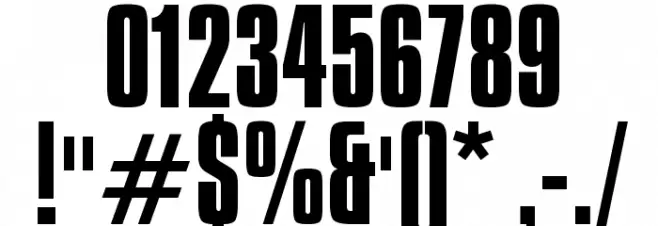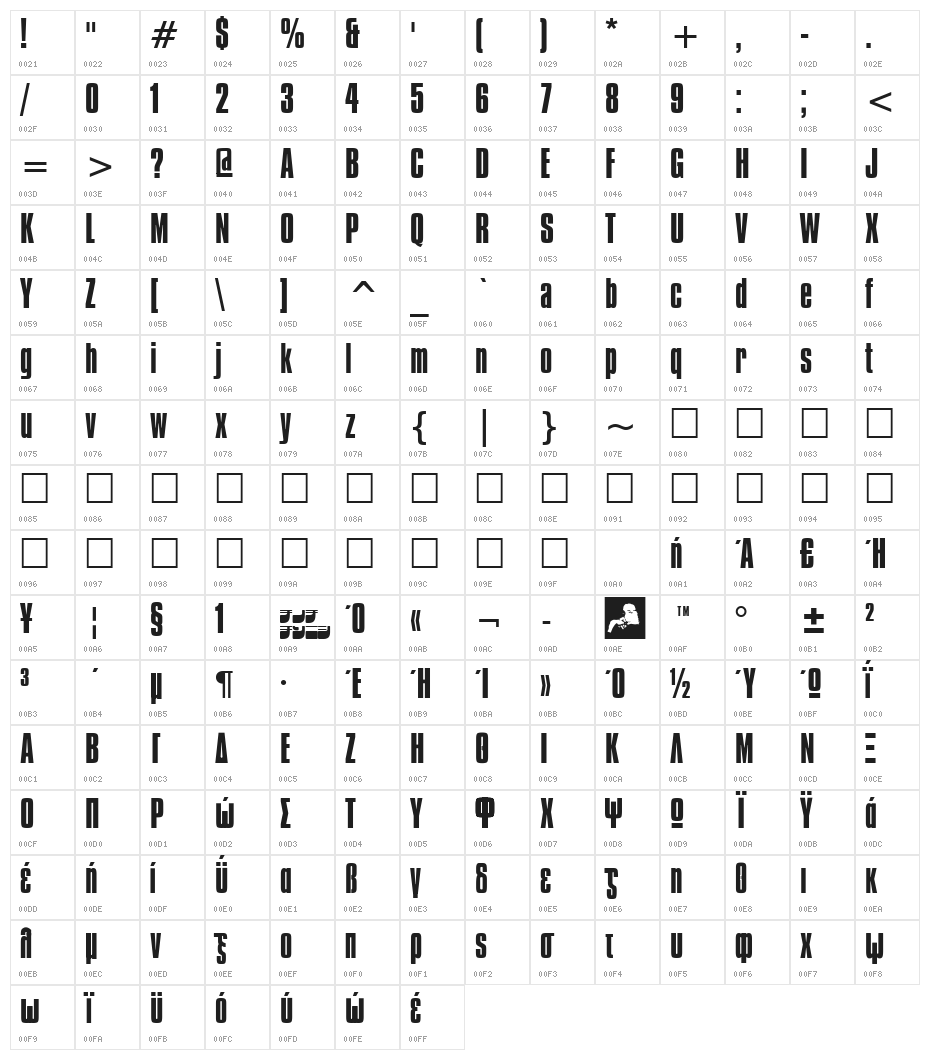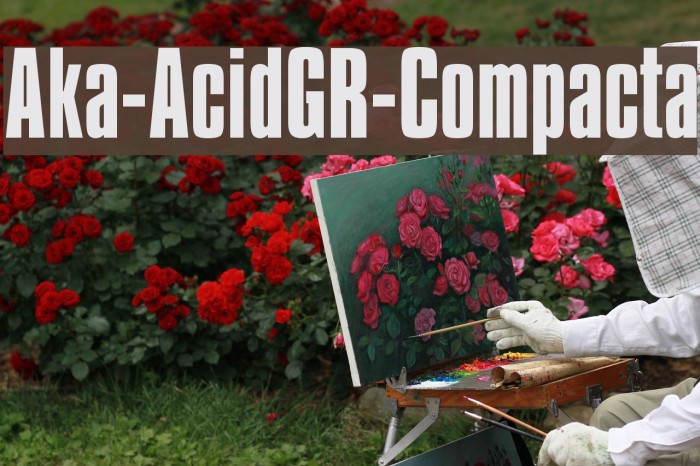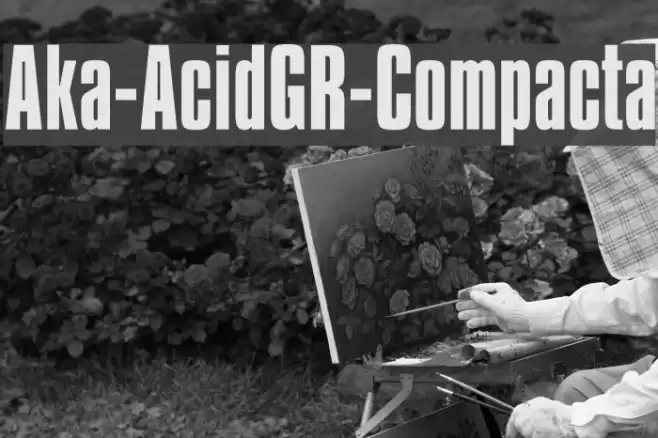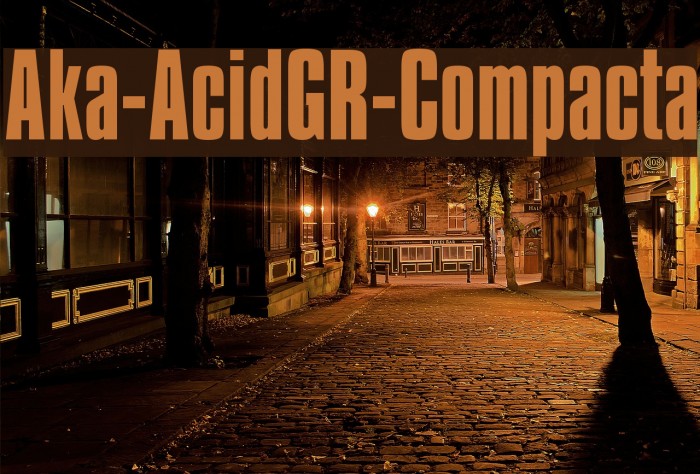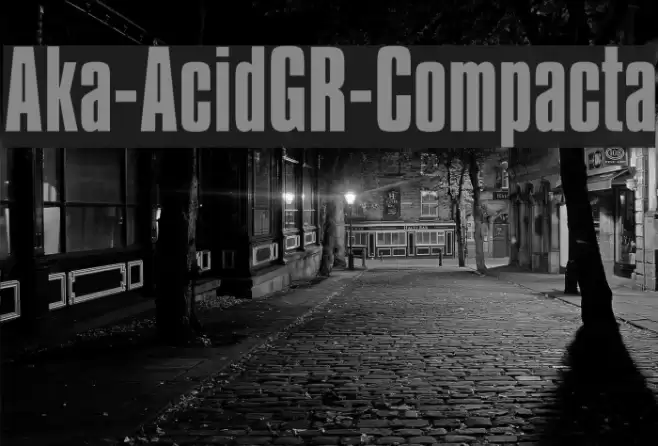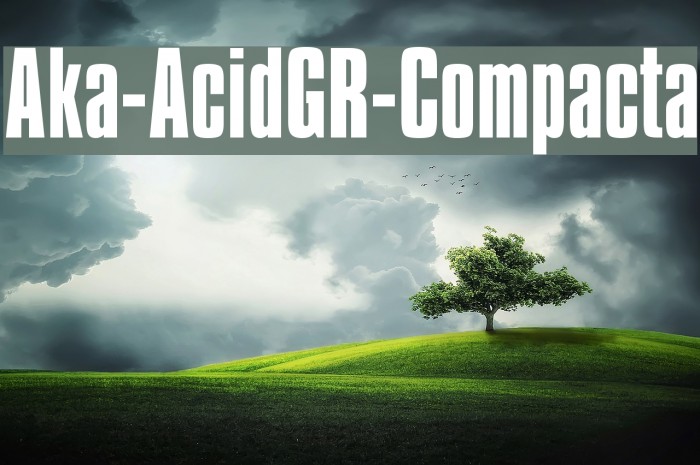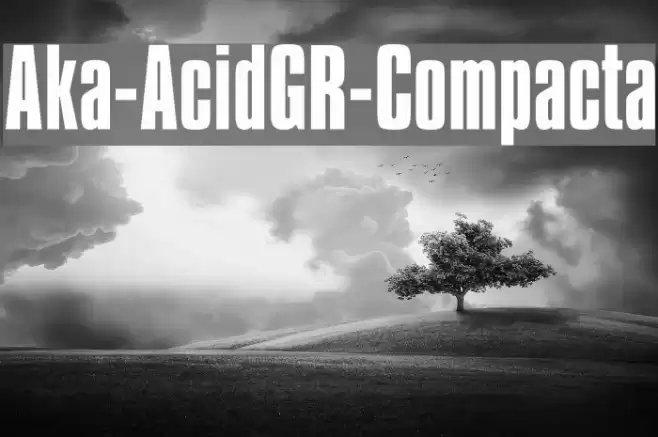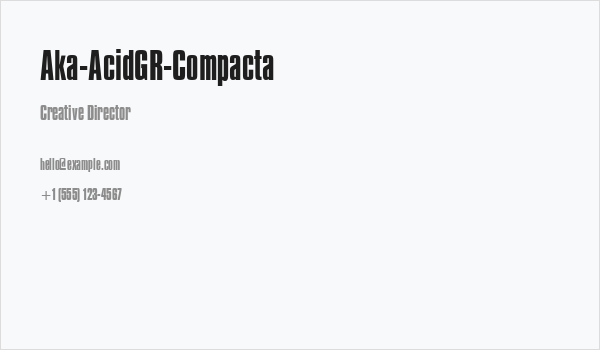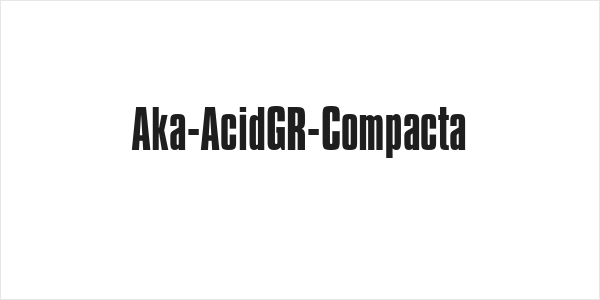
Aka-AcidGR-Compacta Font
Aka-AcidGR-Compacta Description
This font features a bold and impactful design, characterized by its tall, narrow letterforms and strong vertical emphasis. The uppercase and lowercase letters maintain a consistent width, creating a uniform appearance. The numbers are equally bold, ensuring readability and prominence. Special characters are designed with the same boldness, making them stand out effectively. The overall style is modern and assertive, suitable for making a strong visual statement.
| Proposed Projects | This font is perfect for posters, headlines, branding, and any project requiring a bold, attention-grabbing typeface. |